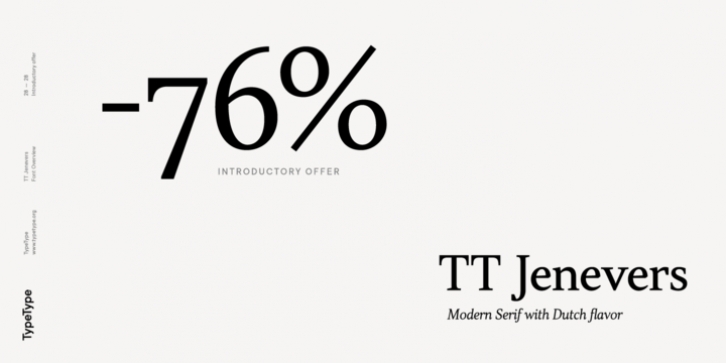
TT Jenevers downloadDesigner: Nadezhda Polomoshnova,
Publisher: TypeType
TT Jenevers is a modern serif with Dutch flavor. The font family features the characteristic details peculiar to Dutch serifs-these are the asymmetrical shape of serifs and an irregular slant of ovals. For example, in the letter “o” there is no slant, but it is present in p-q. In TT Jenevers, both lowercase and uppercase characters are of a large size, which makes it a rather display typeface. At the same time, the big half-ellipse of the lowercase characters does not allow the letters to stick, which allows the implementation of TT Jenevers in text arrays. The italics of the TT Jenevers are slightly narrower as compared to upright faces-this is done to ensure a greater density of the text array.